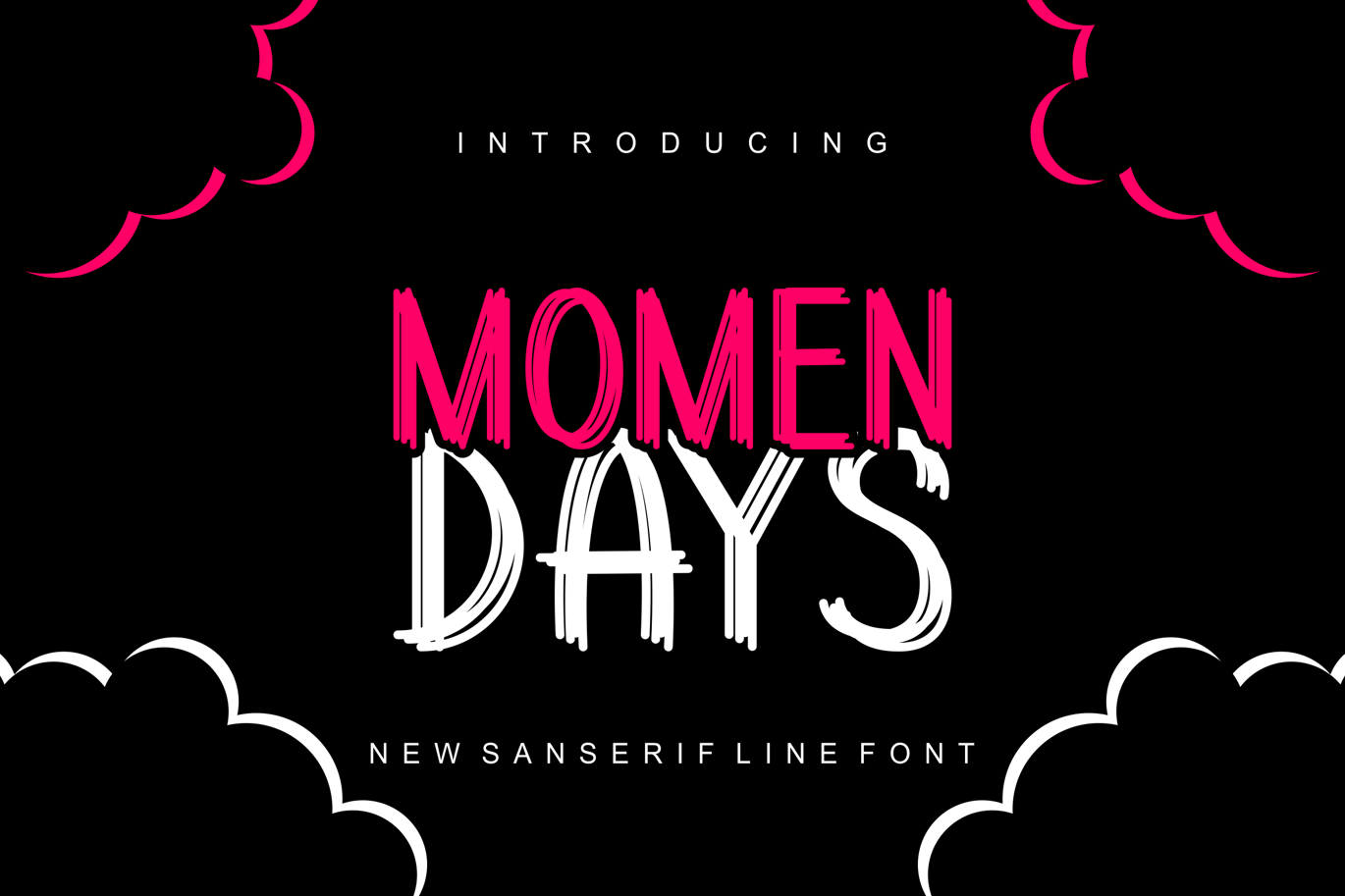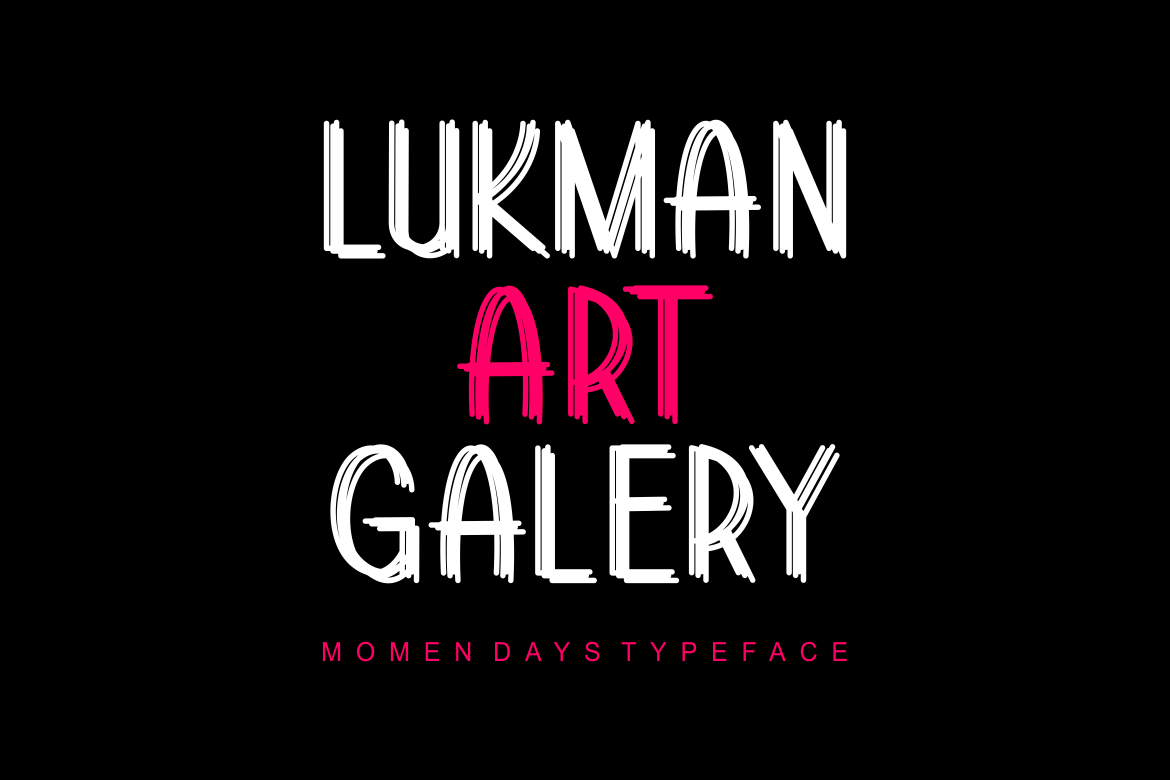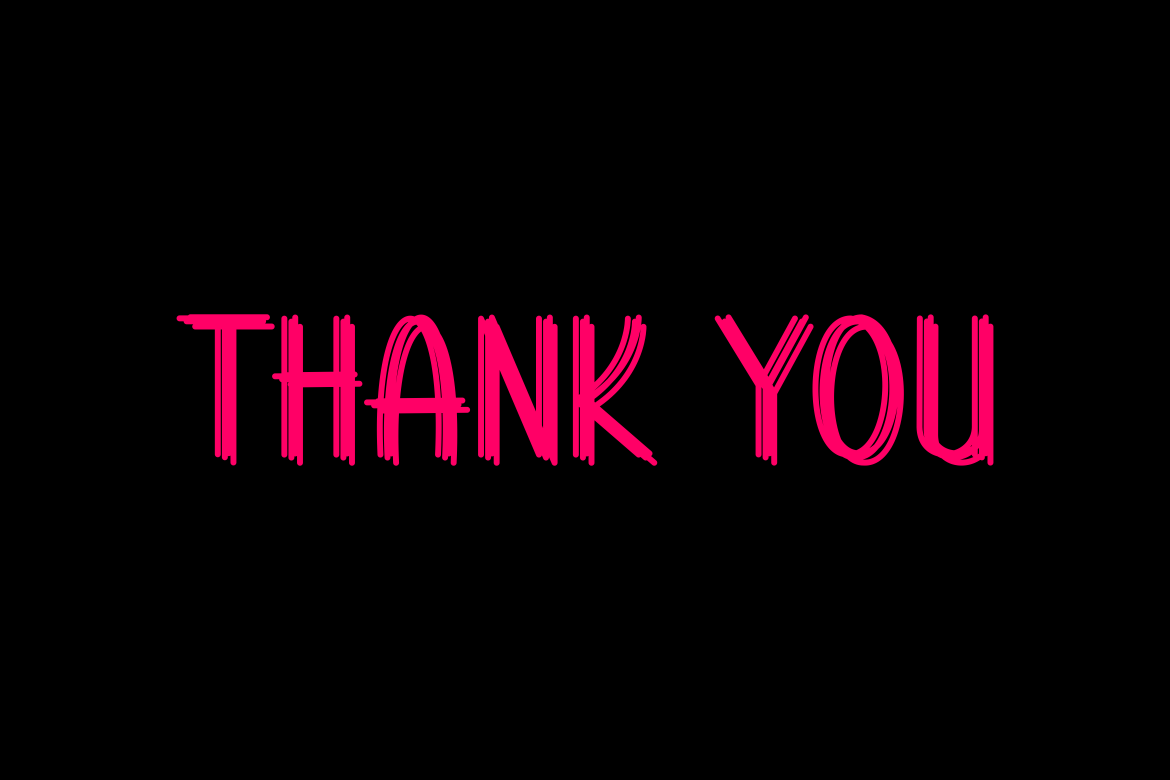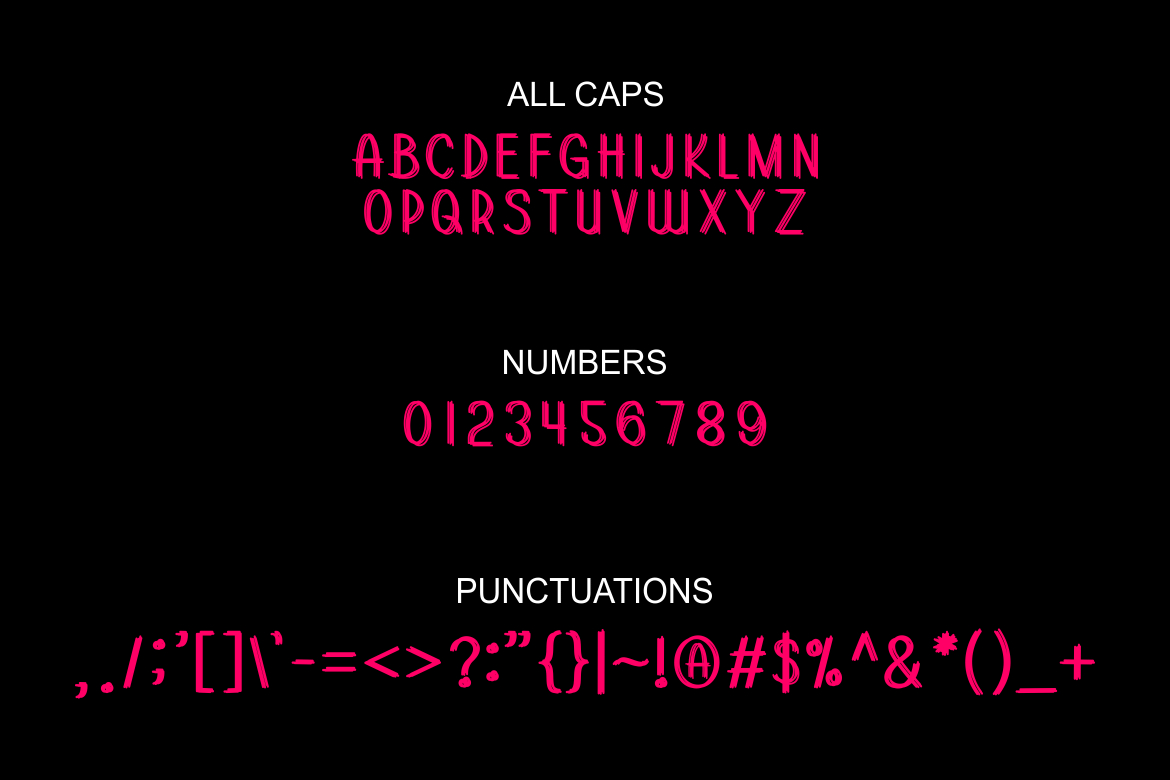
Momen Days Font
Introducing our new product Momen Days Font – Modern Font
Momen Days Font – Modern Font is a bold and authentic display font. The font is suitable for any branding project like logo, t-shirt printing, esport, and many more. outstanding in a wide range of contexts.